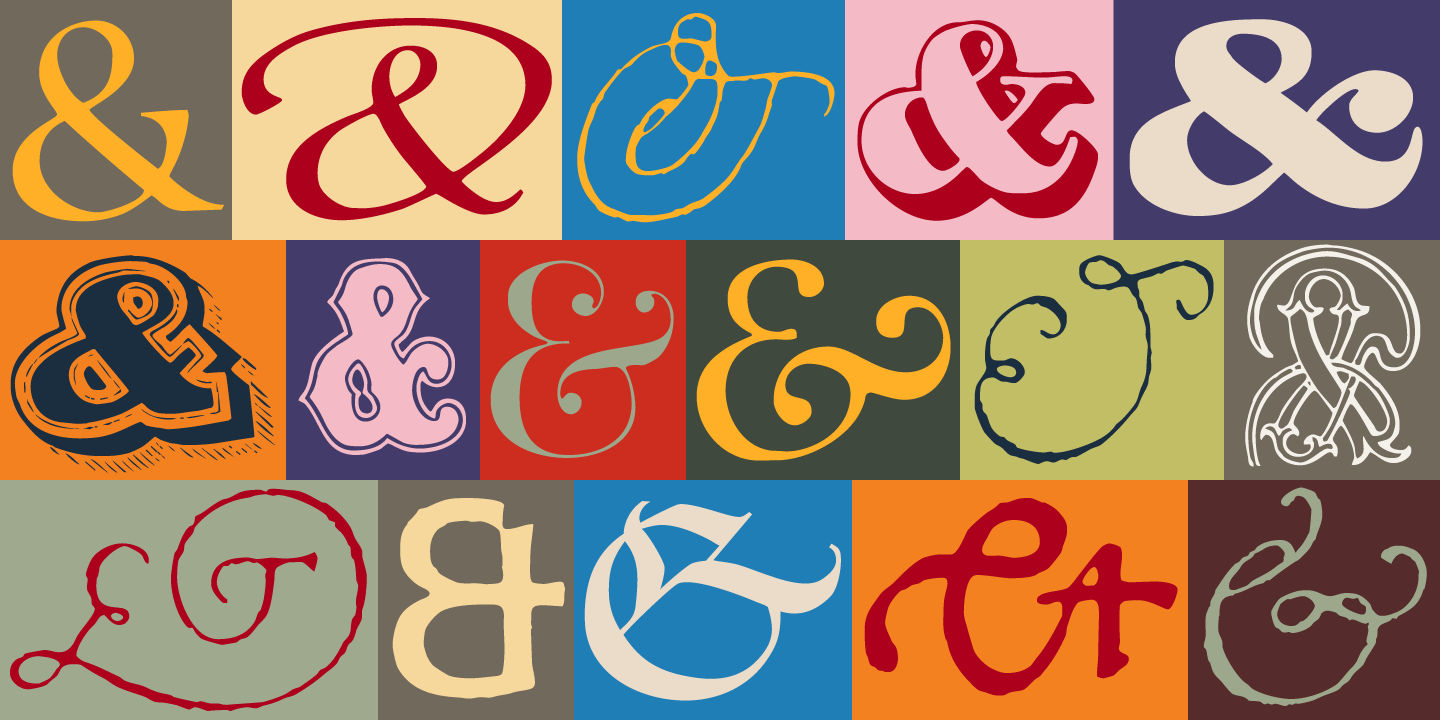
Ampersands One
Ampersands One™ is one of a set of two fonts, each font containing 101 decorative ampersands. These fonts include ampersands from various display fonts in the CastleType Library as well as antique, ornate and calligraphic ampersands. See also Ampersands Two. Click on the Glyph Chart link at right to view all glyphs in this font.